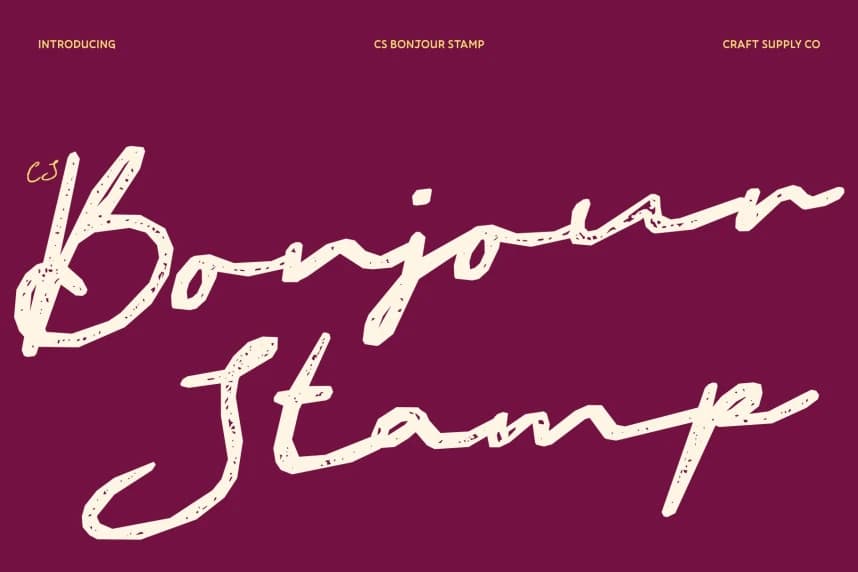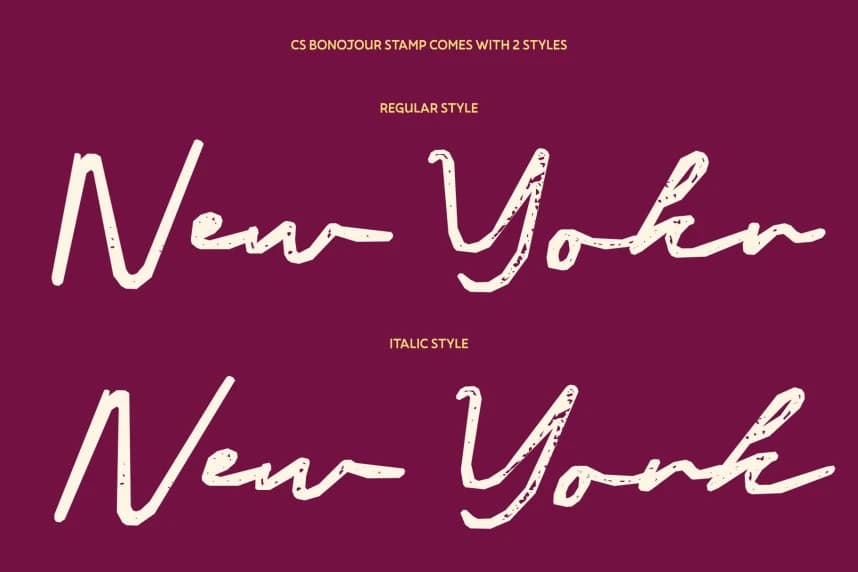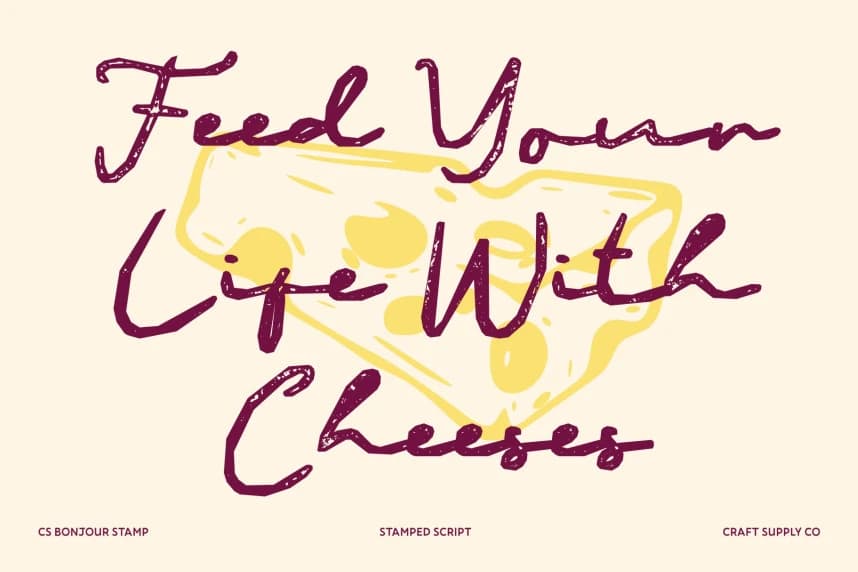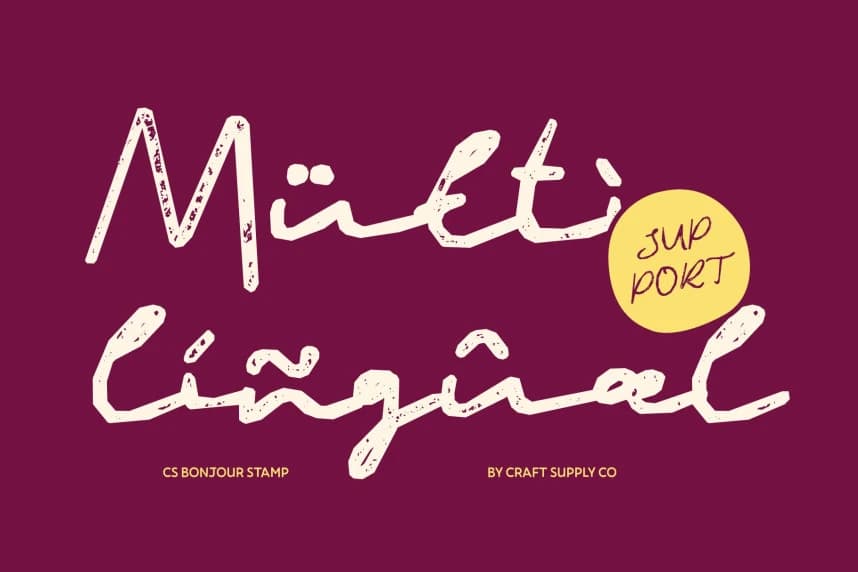
CS Bonjour Stamp Font
CS Bonjour Stamp Font – Elegant Signature Script with Textured Luxury Refined Signature Style with Stamped Authenticity. This captures the fluid elegance of a real handwritten signature, now enriched with a delicate stamped texture.